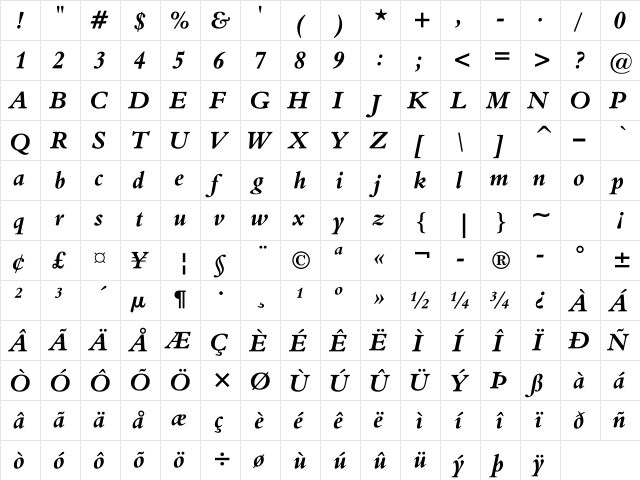
UKIJ Chiwer Kesme Regular Font Preview
UKIJ Chiwer Kesme Regular
UKIJ Chiwer Kesme Regular Font Details
| Foundry | Uyghur Computer Science Association |
| Designer | Xoten Chiwer Qol |
Design Context for UKIJ Chiwer Kesme Typeface
UKIJ Chiwer Kesme is a composed and adaptable typeface that performs quietly and consistently across a wide range of design contexts.